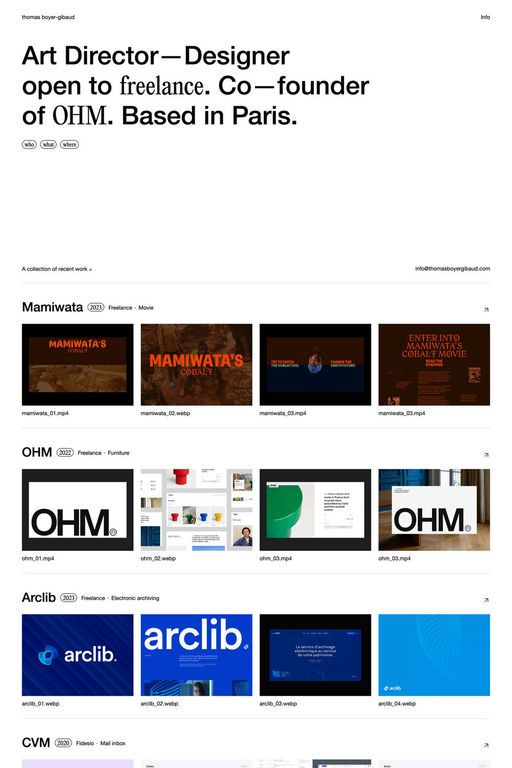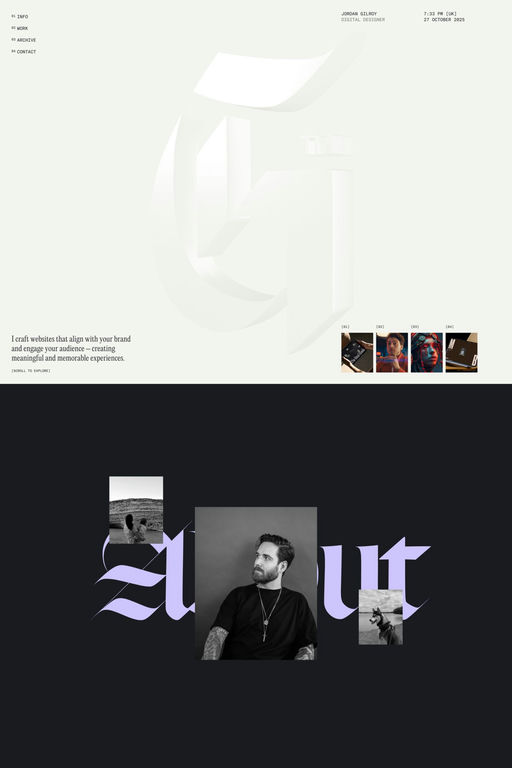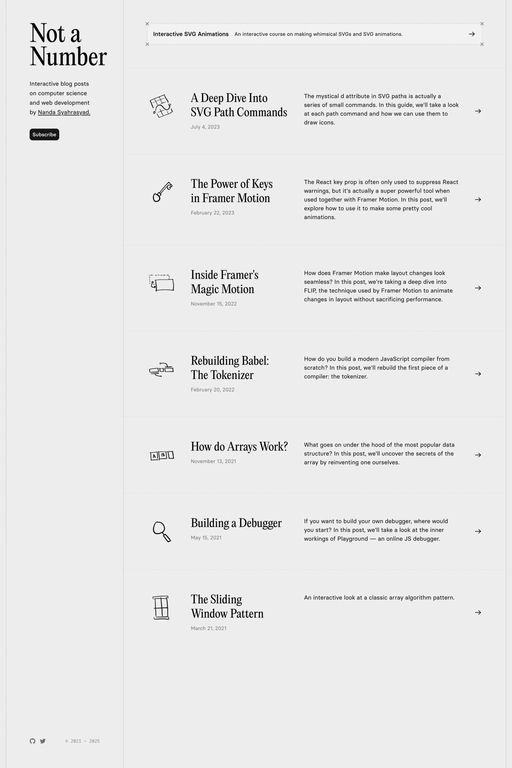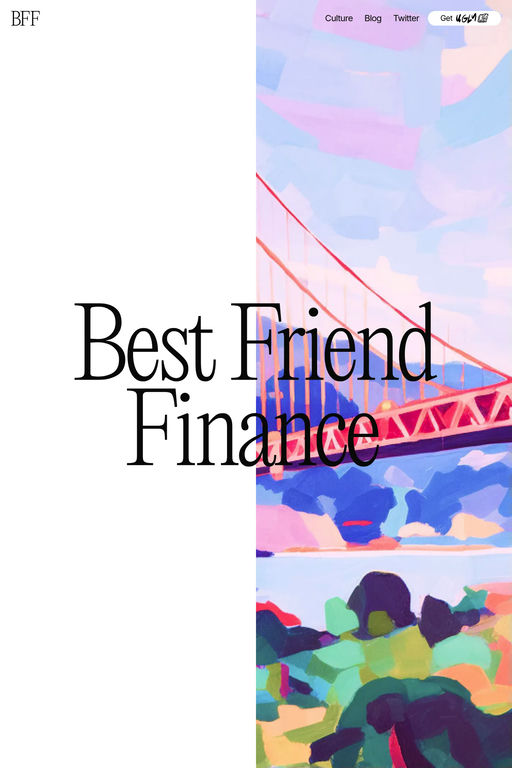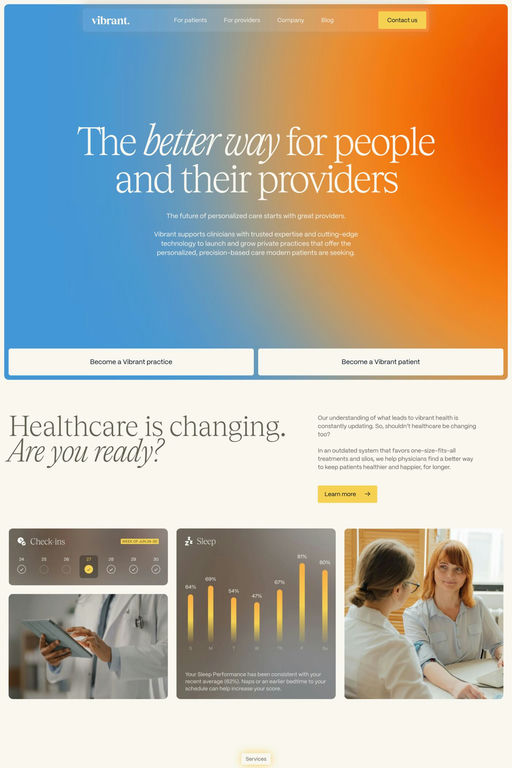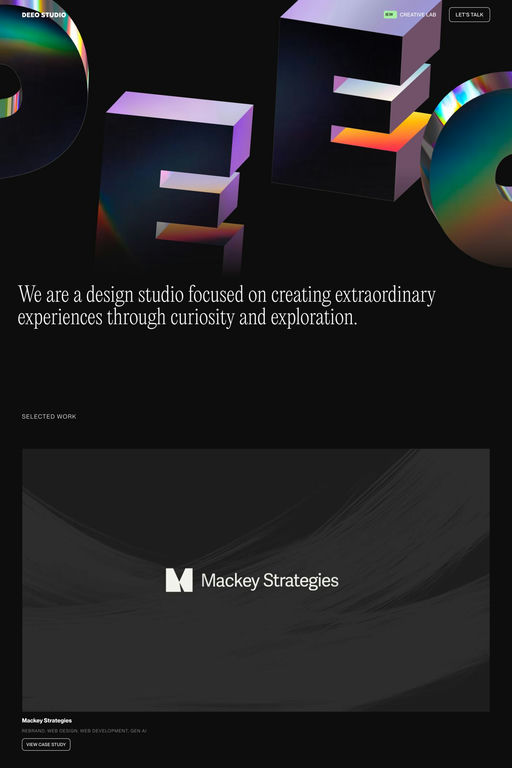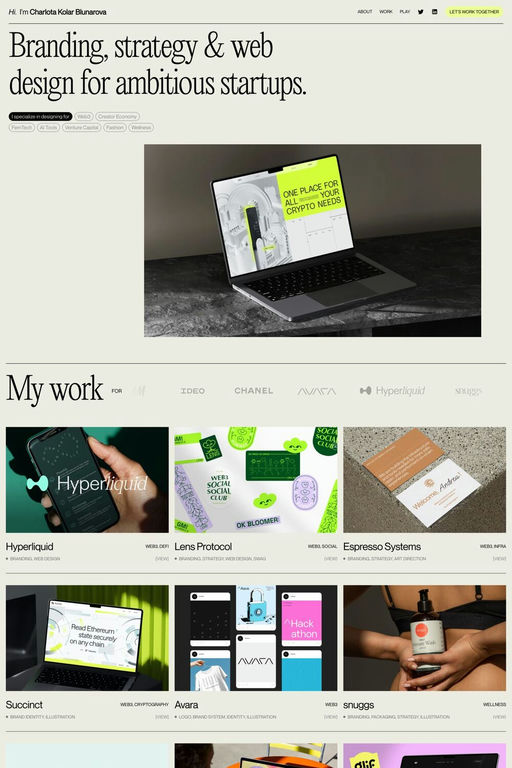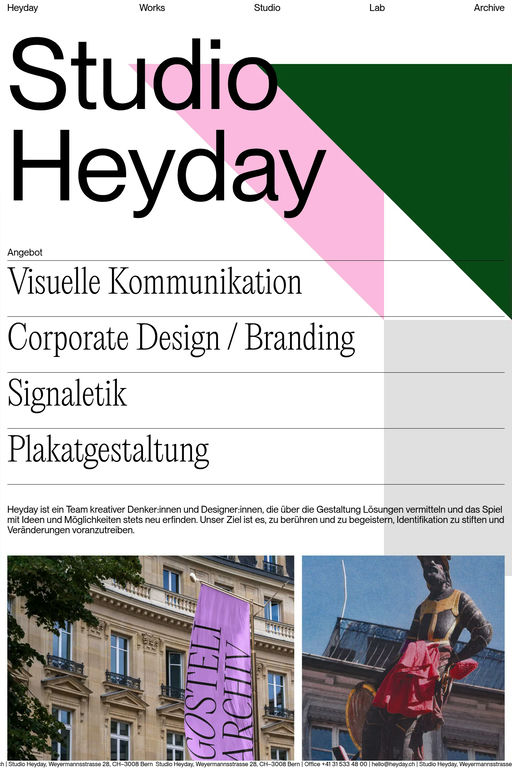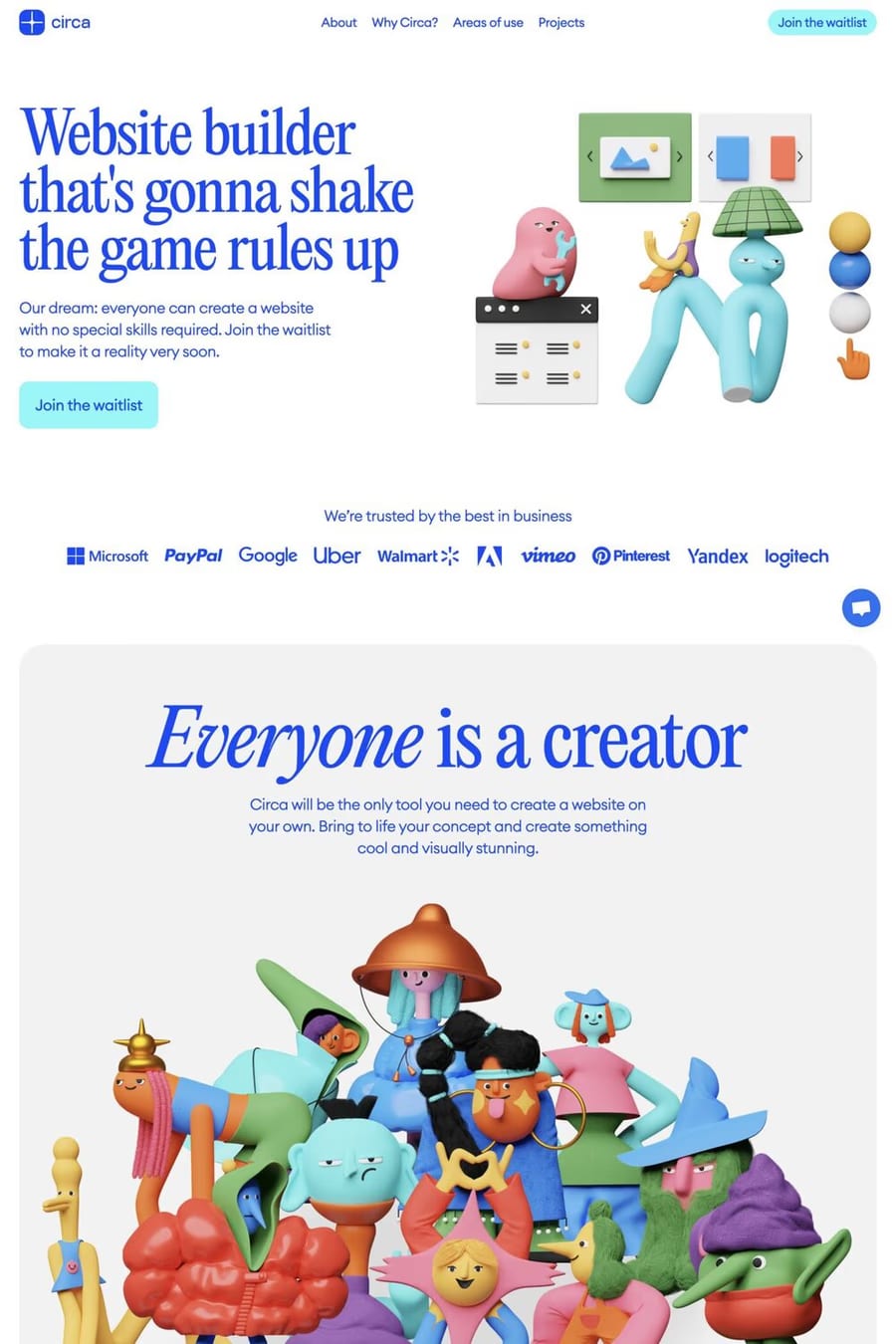
Editorial New is a serif typeface from Pangram.
A precise and elegant narrow serif that was designed for the long-form copy with a big enough personality to make a statement as a title ● It is perfect to give your design that mid 90s retro feel while being rich and contemporary.
A1 features 16 websites using Editorial New, including Jason Bergh, Andre Candido, and Jordan Gilroy. They lean towards Serif, Minimal, and Typographic design styles, and they’re most often built with Webflow, Next.js, and Framer.